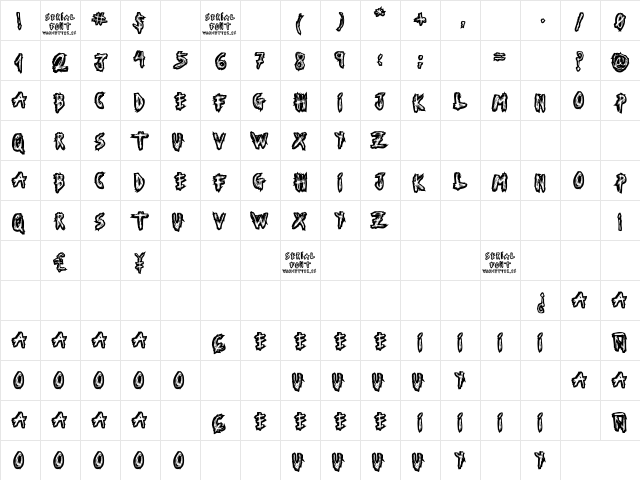
Serial Font Regular
| Designer | Woodcutter Manero |
Design Context for Serial Font Typeface
Serial Font is a composed and adaptable typeface that performs quietly and consistently across a wide range of design contexts.